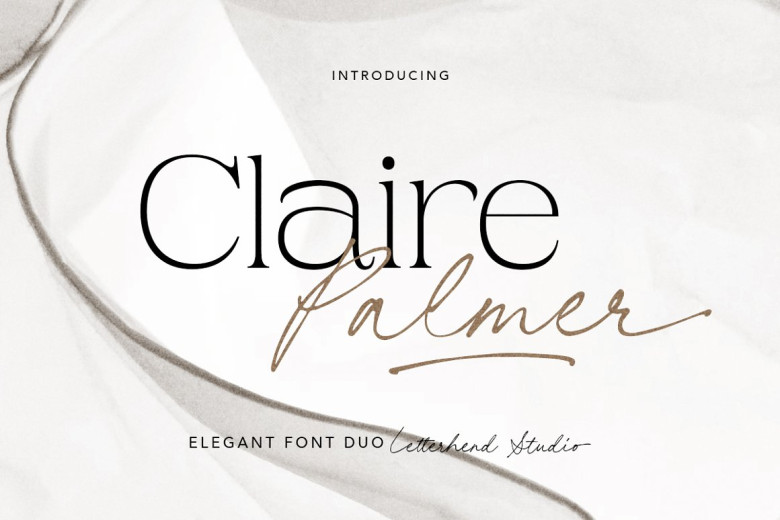
Claire Palmer Font
Claire Palmer Font Duo
Paired up with a script font, The Claire Palmer is certainly eye-catching. Its script font consists of curving strokes flowing with grace and a clean, elegant serif font. The look of this font compilation is modern yet dignified, turning it well-suited for most projects like a logo or any number of applications formal invitations, labels, advertisements, business cards, magazines or newspapers, books, greeting or wedding cards and packaging, fashion journals, lipstick shade words, stationery shops all over town; even novels and labels.
Claire Palmer Font Duo